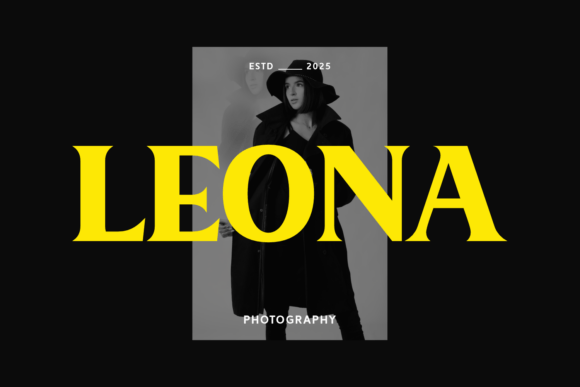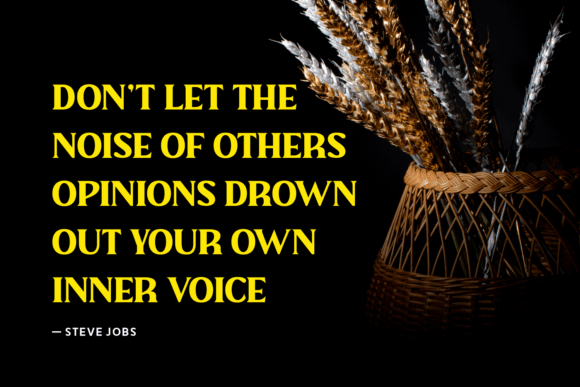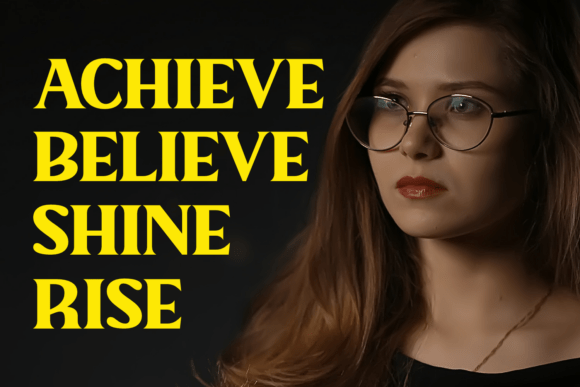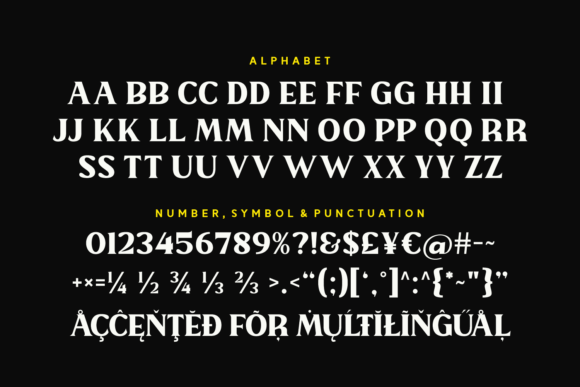
The Power of Typography: Unleashing the Greatest Creation Font
I’ll never forget the moment I stumbled upon the Greatest Creation font. I was working on a luxury branding project for a high-end fashion client, and I was struggling to find the perfect typeface that exuded elegance and sophistication. The client wanted a font that would make their brand stand out, and I was determined to deliver. That’s when I discovered Greatest Creation, a bold and elegant serif font that instantly caught my attention.
A Game-Changing Font for Impactful Headlines
Greatest Creation is a masterpiece designed for impactful headlines and luxury branding. Its powerful presence is shaped by strong, modern serifs and dynamic curves that add charm and energy to your designs. This typeface is perfect for magazine titles, packaging, posters, and upscale logos, evoking confidence and class. With a dramatic yet refined appearance, Greatest Creation helps you express creativity with style and precision.
An Honest Review: What I Love and What I Don’t
The Good ✨
- ✅ Elegant and sophisticated design
- ✅ Strong, modern serifs and dynamic curves
- ✅ Perfect for luxury branding and high-end designs
- ✅ Easy to read, even in large sizes
The Not-So-Good 🤔
- ⚠️ Limited use for body text due to its bold nature
- ⚠️ May not work well for very small font sizes
The Designer Inspiration Behind Greatest Creation
The story behind Greatest Creation is one of passion and dedication. The font was designed by a team of typographers who wanted to create a typeface that would inspire creativity and elegance. They drew inspiration from classic serif fonts, but with a modern twist. The result is a font that is both timeless and contemporary, perfect for luxury branding and high-end designs.
Q: What is the best use for Greatest Creation font?
A: Greatest Creation is perfect for luxury branding, high-end designs, magazine titles, packaging, posters, and upscale logos.
Q: Can I use Greatest Creation for body text?
A: While Greatest Creation is a beautiful font, it’s best suited for headlines and titles due to its bold nature. For body text, you may want to choose a font with a lighter weight.